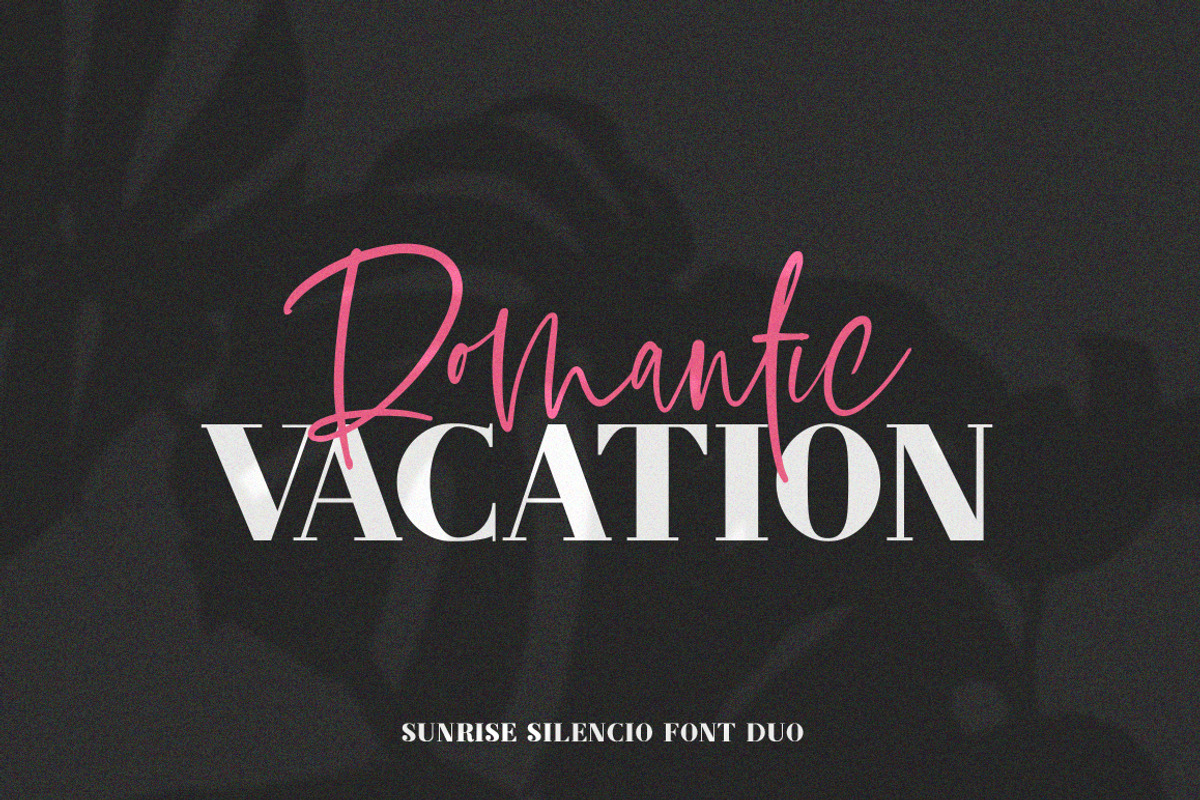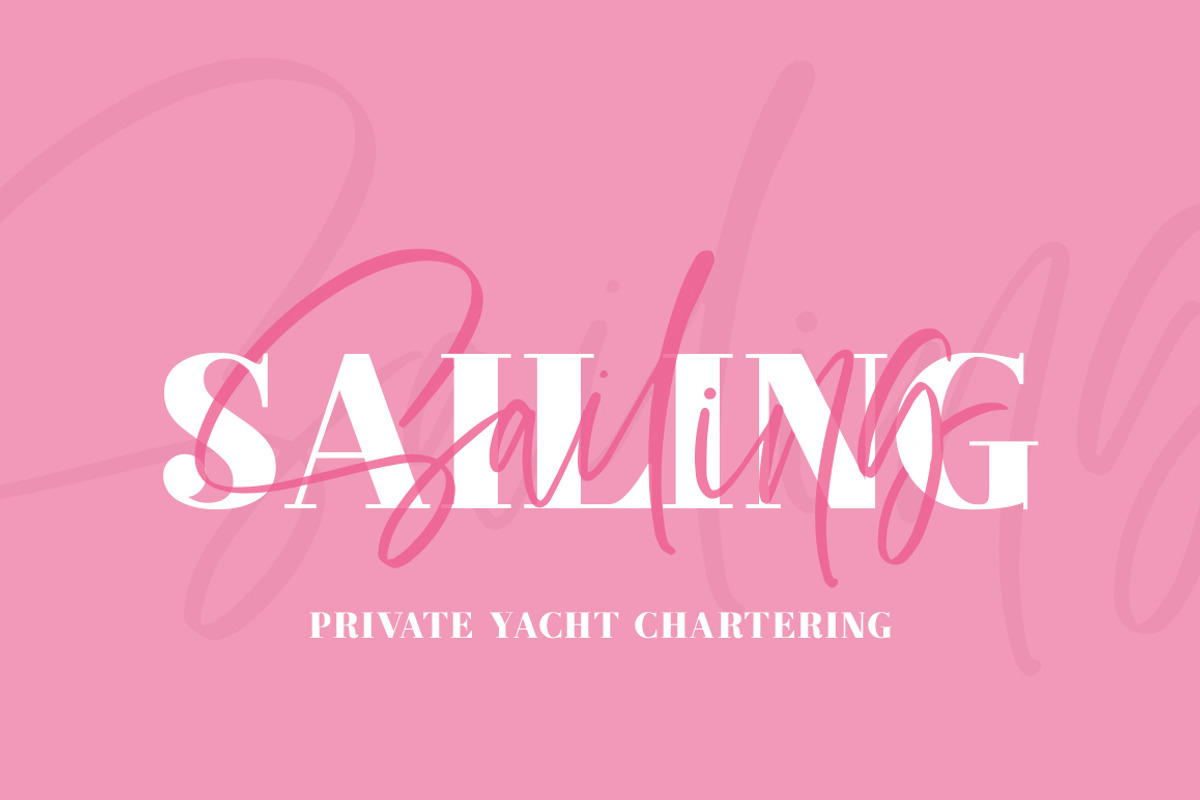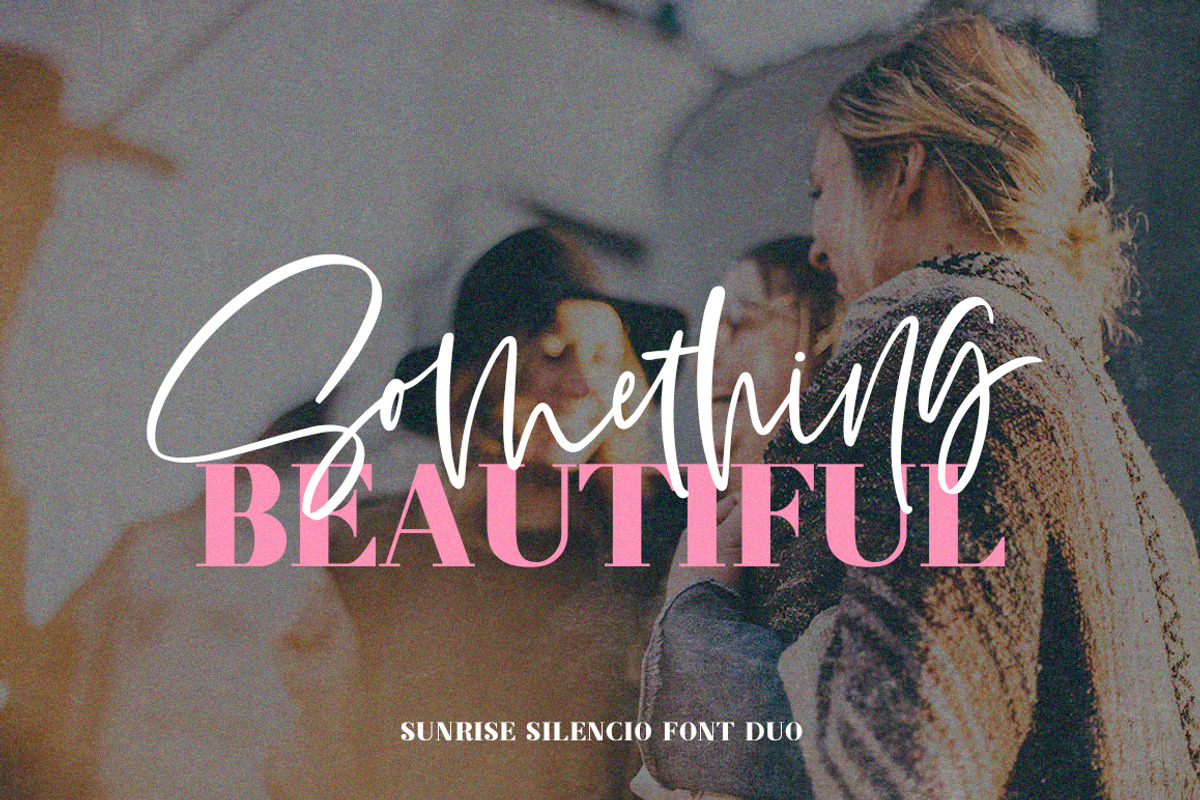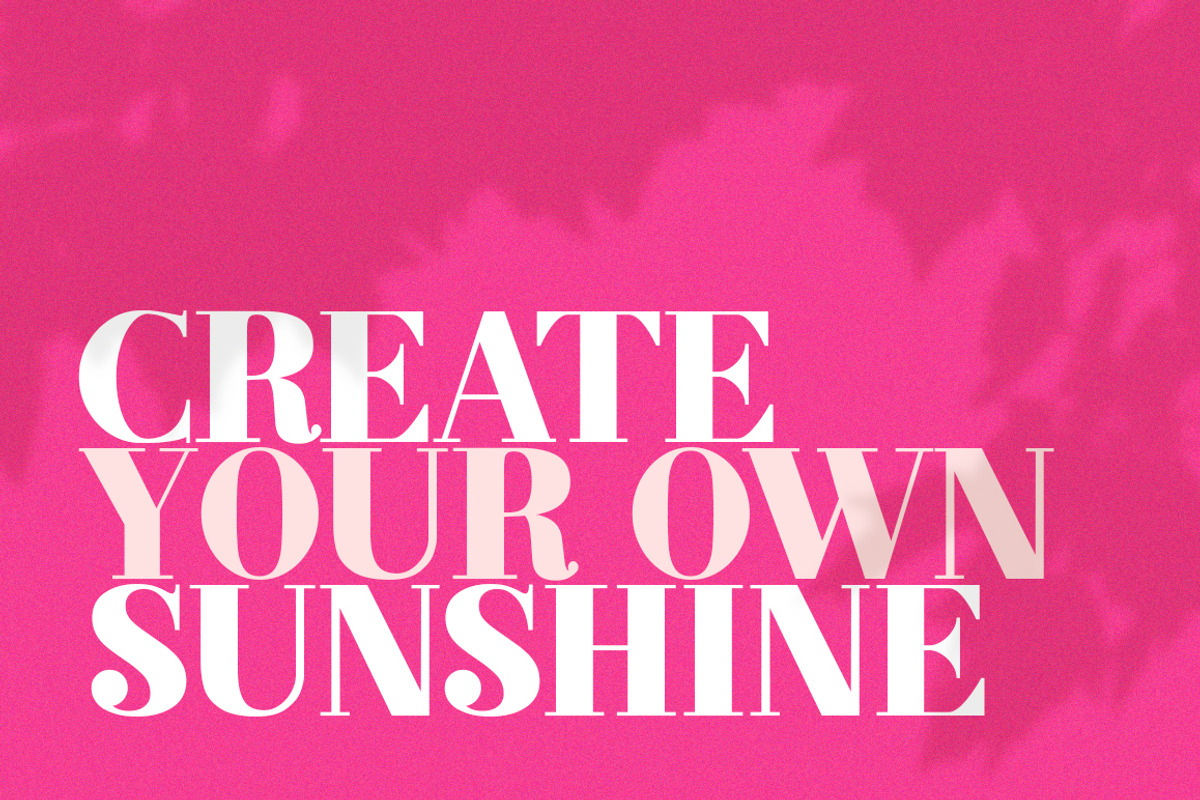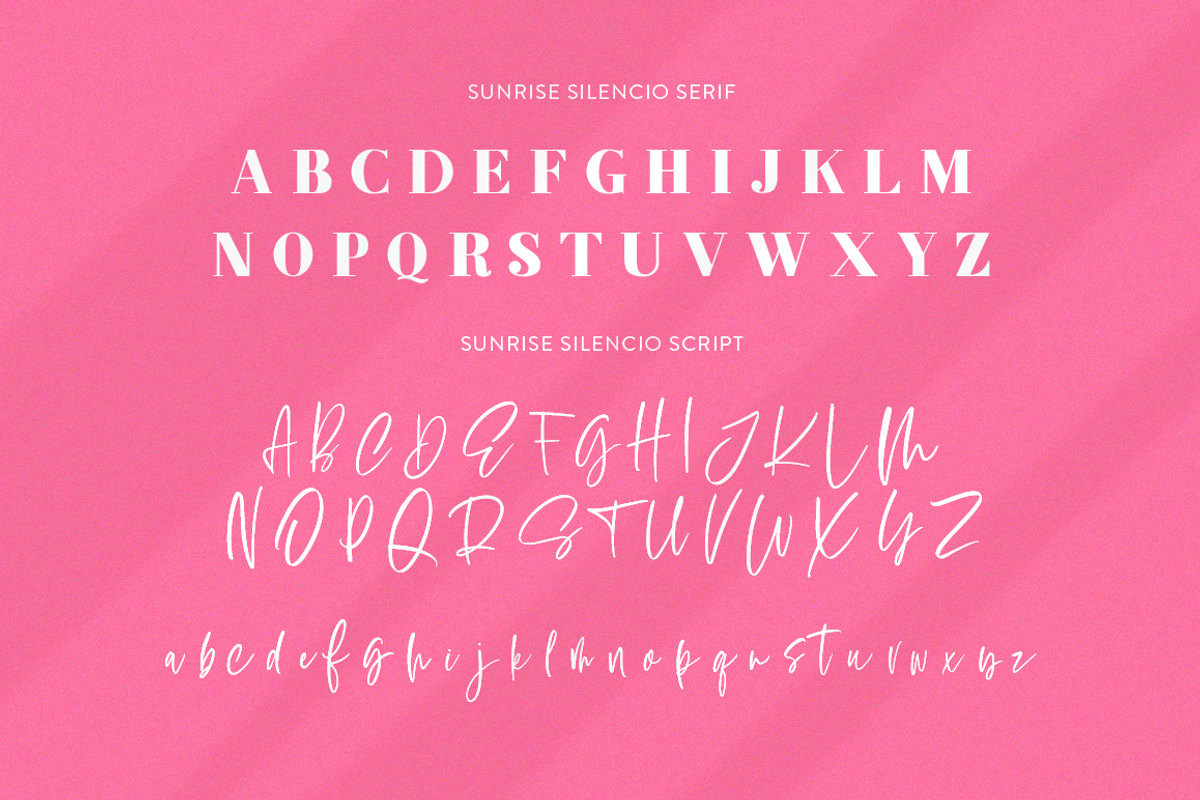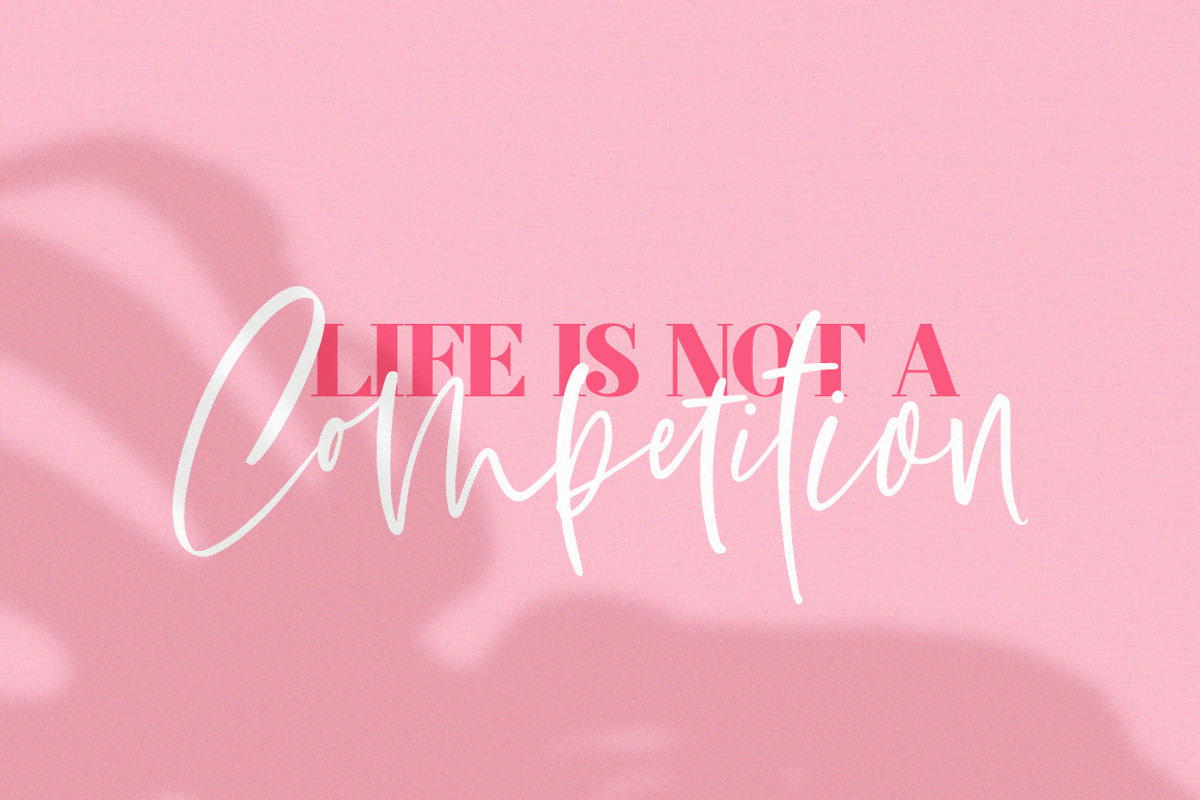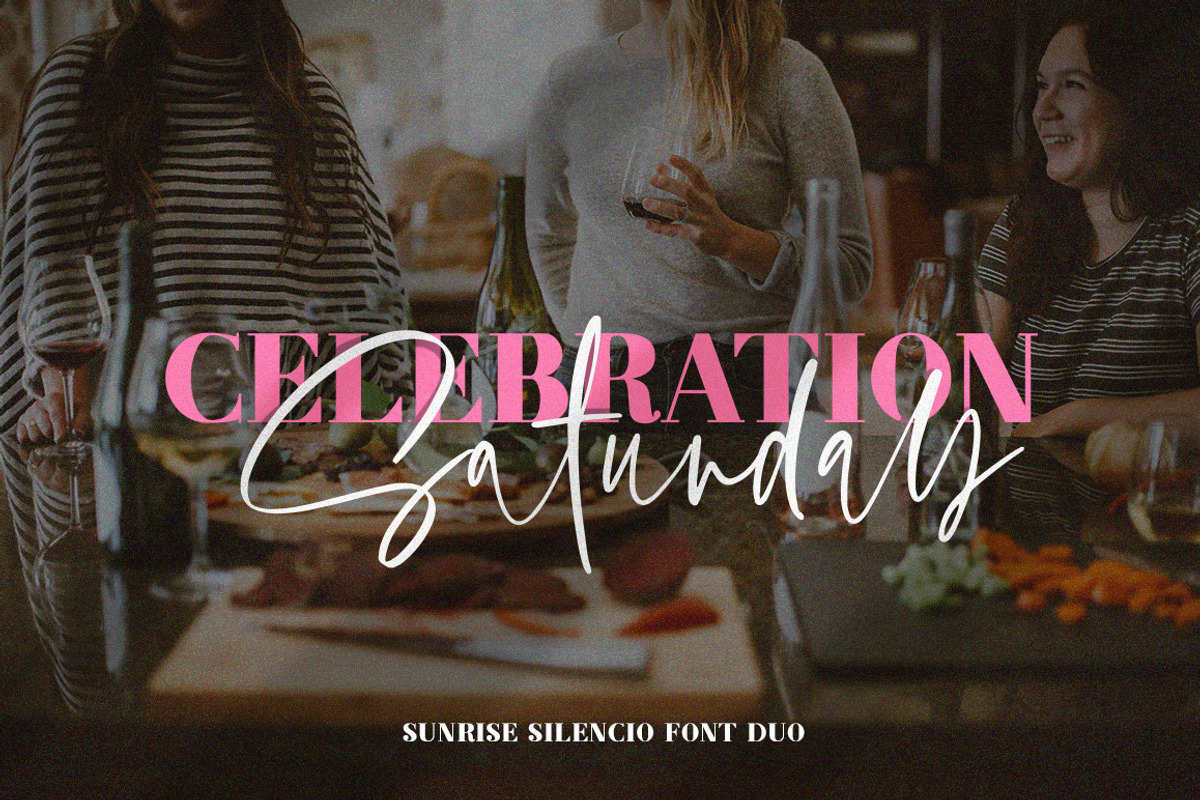
Sunrise Silencio Font Duo
Sunrise Silencio is a brand new and exciting font duo from Salt & Pepper Designs. A uniquely styled serif that is classy and classic but with a modern twist that’s paired perfectly with a spicy script which is full of life and bounce. Enjoy using them as a pair or make them go it alone, they can handle it!